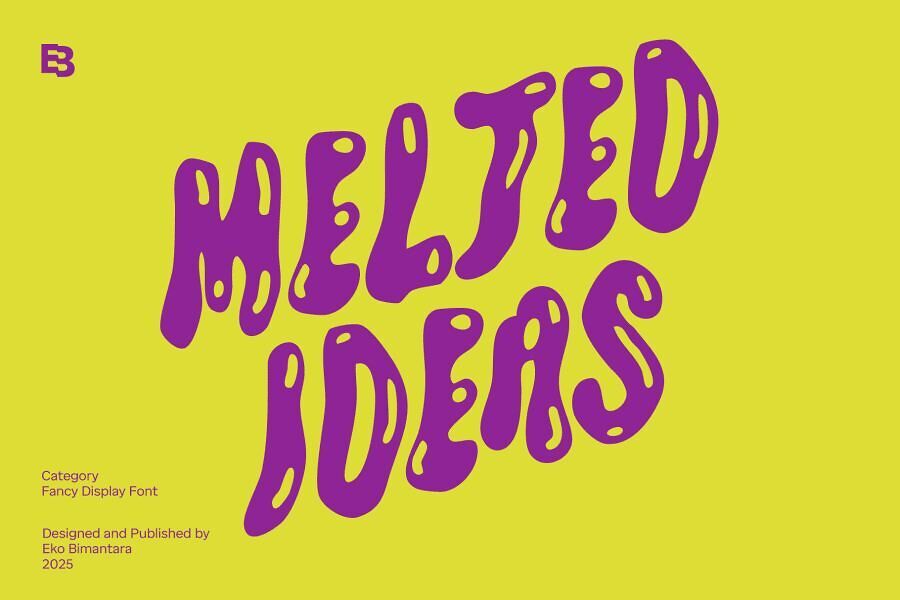
Melted Ideas Font
Melted Ideas is a fun, whimsical display typeface with a playful, melting effect that gives text a dynamic, drippy character ideal for headlines, logos, titles, and creative branding projects.
Its unique, fluid letterforms make designs stand out while keeping a bold and approachable vibe. Free for both personal and commercial use, this font adds quirky visual impact to posters, packaging, and attention-grabbing graphics.